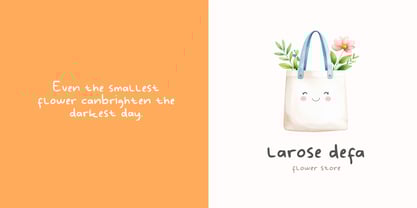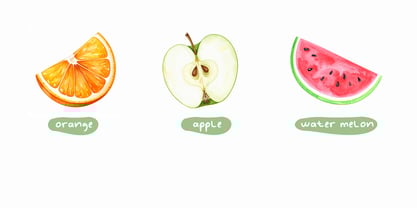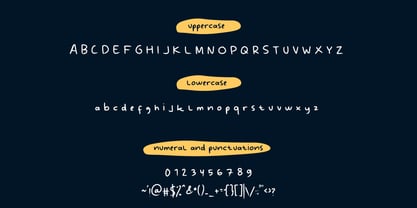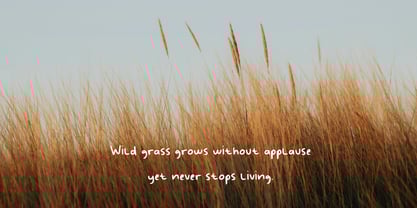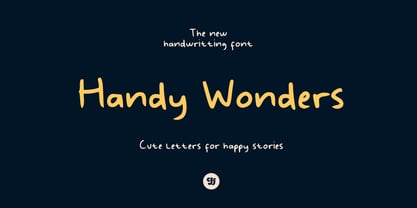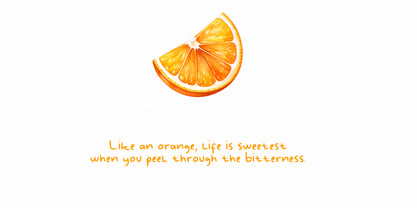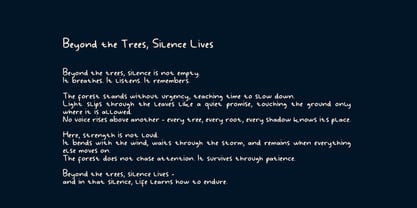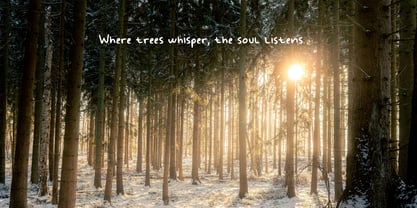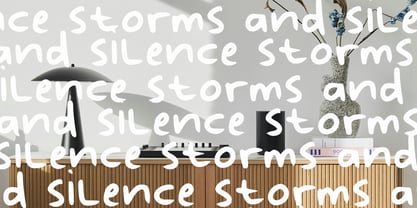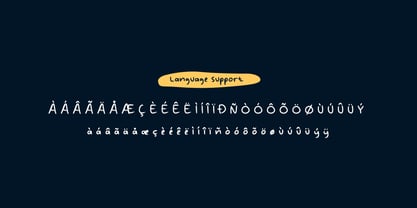
Handy Wonders
The Handy Wonders Font Family was designed by Muhammad Husni Haikal and published by Graphicfresh. Handy Wonders contains 1 styles. More about this family
Handy Wonders is a playful and natural handwriting font that captures the charm of real hand-drawn letters. With its smooth strokes and friendly personality, this font feels warm, personal, and full of character. Designed to look organic yet readable, Handy Wonders is perfect for a wide range of creative projects - from branding and logos to quotes, social media posts, packaging, invitations, and children-friendly designs. Its casual handwritten style brings a human touch that feels authentic, relaxed, and expressive. Whether you’re creating something fun, cozy, or heartfelt, Handy Wonders helps your designs feel more alive and approachable.